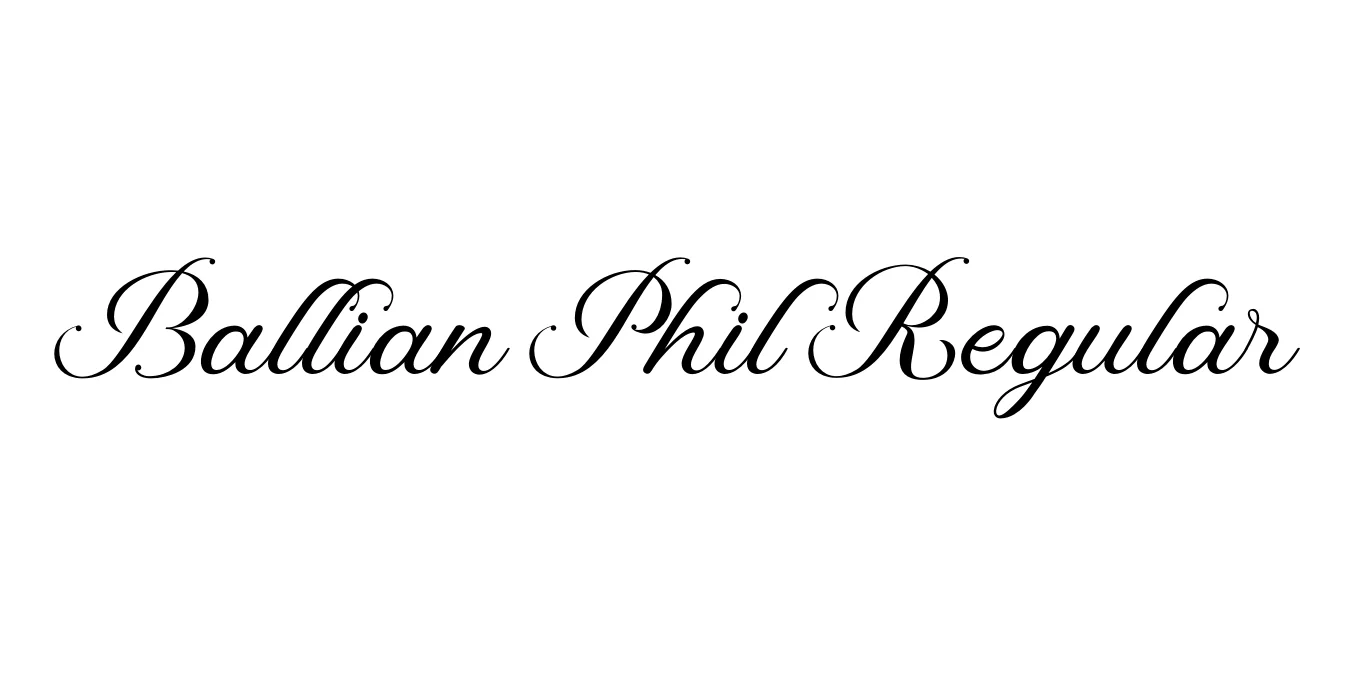
Ballian Phil Regular
Ballian Phil Regular is an elegant and sophisticated signature-style script font designed by Alit Design. This font captures the essence of natural handwriting with its fluid strokes and stylish ligatures, making it an excellent choice for projects that require a personal touch. Its delicate curves and balanced letterforms offer a high level of readability while maintaining an artistic flare suitable for luxury branding and high-end editorial layouts.
Whether you are designing wedding invitations, logos, or social media graphics, Ballian Phil Regular provides a professional and high-end aesthetic that resonates with modern audiences. The font includes a variety of OpenType features that allow designers to create unique text compositions through alternate characters. It is widely recognized for its versatility across print and digital media, helping brands establish a memorable and refined visual identity.
Ballian Phil Regular Best Uses
Perfect for invitations, RSVP cards, and envelopes due to its romantic and personal feel.
Ideal for logo design in the fashion, beauty, photography, and jewelry industries.
Great for creating aesthetic quotes, stories, and stylish overlays on platforms like Instagram.
Adds a premium and artisanal touch to product labels, tags, and box designs.